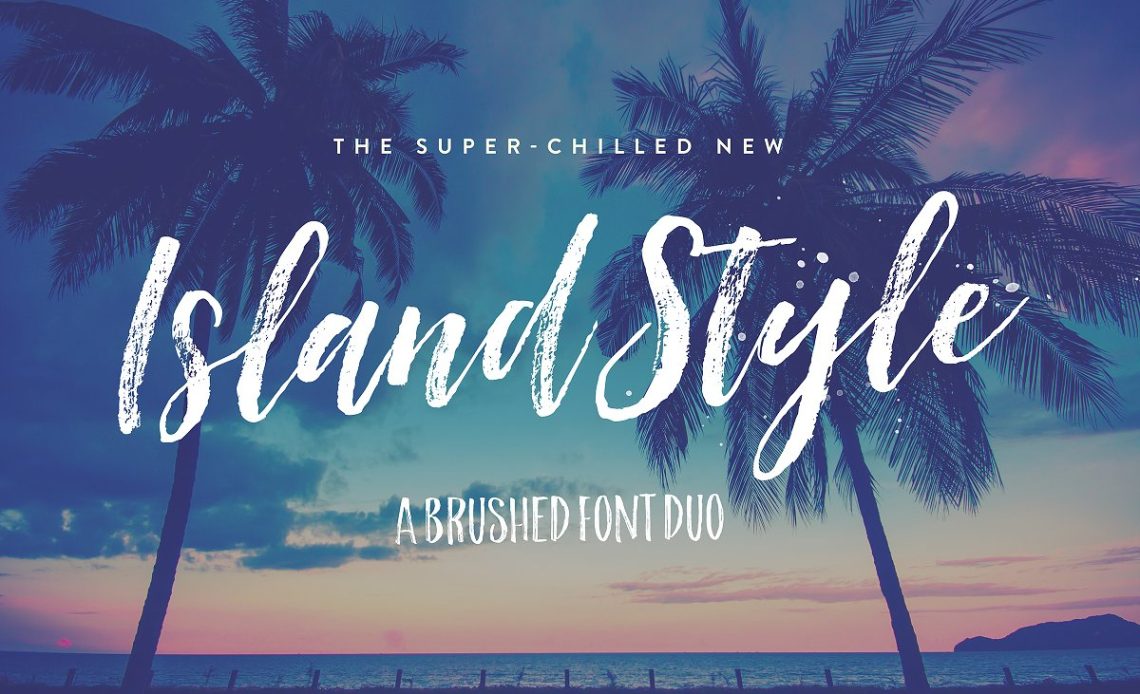
Introducing the Island Style Brushed Font Duo - the perfect script font family for all your creative needs! Created by the talented Nicky Laatz, this duo offers a super casual hand-lettered script with detailed brush stroke texture, and a quirky all uppercase sans serif font with a dry brush texture. The brush fonts can be used together or separately to create an authentic brush-lettered feel on your branding, prints, merchandise, websites, quotes, and more.
For added authenticity, the Island Style brush script includes a full set of alternate lowercase characters, available as a separate font for those without fancy software. Plus, for those with OpenType capable software, the font has a comprehensive set of double letter ligatures and a stylistic set of lowercase alternate characters, all included in one handy font.
But that's not all! The Island Style Font Duo also includes multilingual support, offering languages such as Danish, Dutch, English, French, German, Indonesian, Irish, Italian, Norwegian Bokmål, Norwegian Nynorsk, Spanish, Swedish, and Swiss German.
This font duo is the best font for writing a book, as it adds an authentic and personalized touch to your written content. With its unique and eye-catching brush strokes, Island Style is perfect for designing logos, creating typography, and designing merchandise.
So, whether you're a writer, designer, or just someone who wants to add a touch of creativity to their project, the Island Style Brushed Font Duo is the perfect addition to your font collection. Buy it now and let your creativity soar!